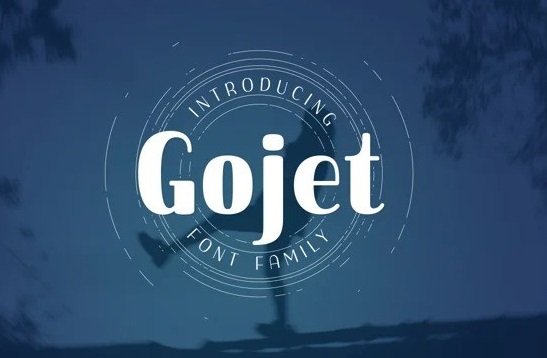
Gojet Font
Gojet Sans Serif Font is a geometric sans font family with unique characters for a touch of distinction. Simple yet sophisticated, this typeface design gives a clean and modern appearance while carrying some almost retro tones. Gojet is available in six different weight, makes it flexible and widely usage possibilities, text, headlines, even logotype. Mix and matching different weight is absolutely the right decision to make your project more attractive, eye catching.
The other fact that Gojet is based on ANSI encoding is additional point, multilingual support makes most languages can use this typeface properly.